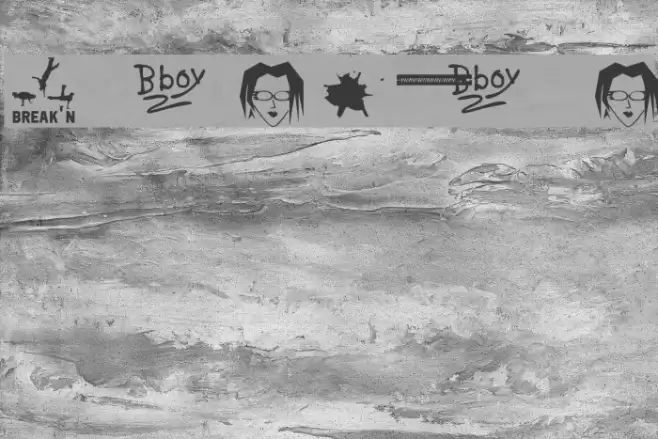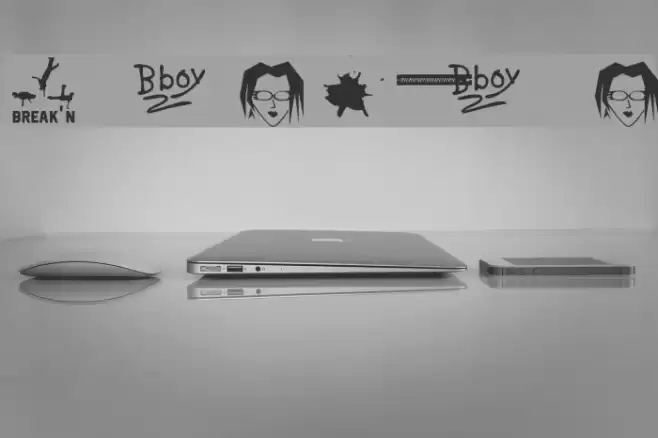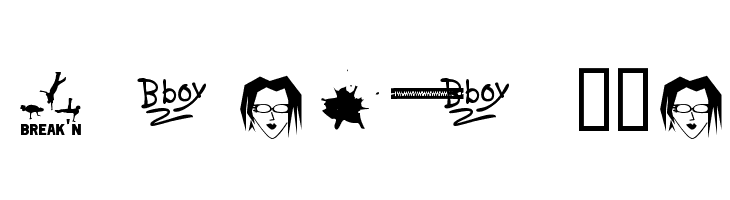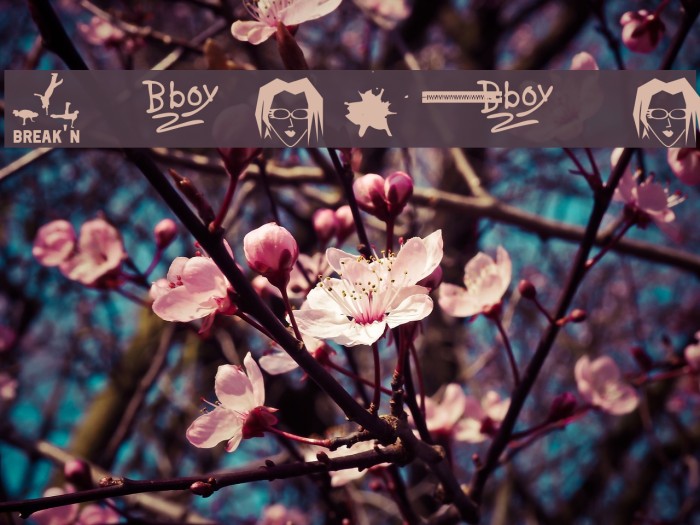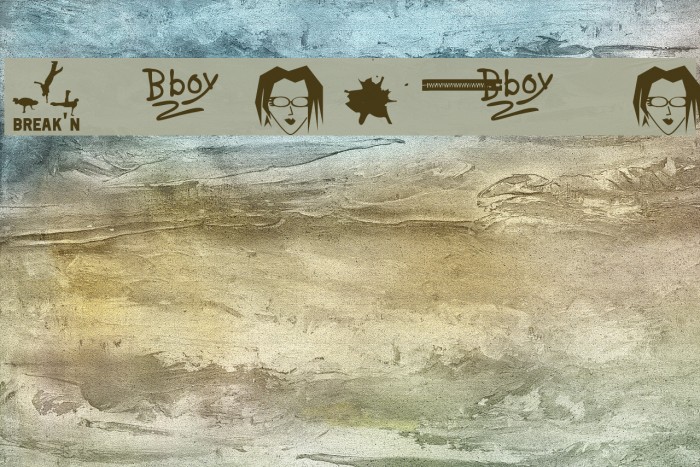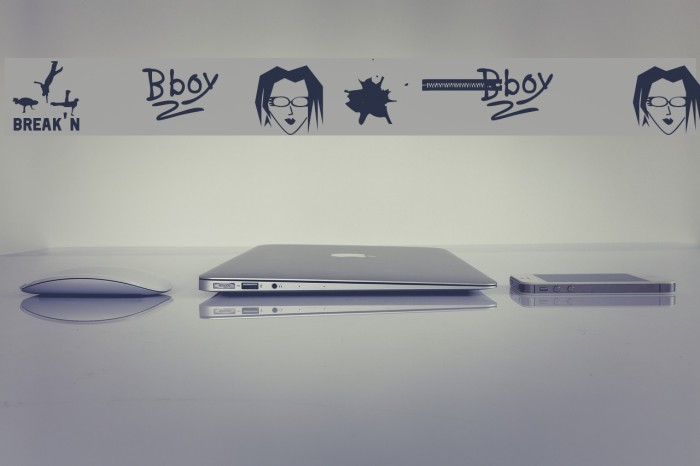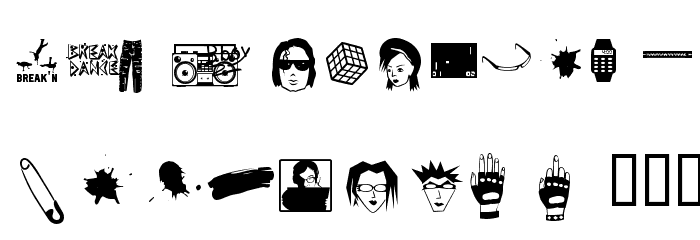
Awesome 80s Font
Awesome 80s Description
This is not a traditional font but rather a collection of 1980s-themed icons and graphics. The design includes various elements such as breakdancing figures, boomboxes, retro sunglasses, and other iconic symbols from the 80s era. These graphics are bold and striking, capturing the vibrant and eclectic style of the decade. The elements are presented in black and white, emphasizing their bold outlines and shapes. This collection is perfect for projects that aim to evoke nostalgia or celebrate the unique cultural aspects of the 1980s.
A collection of bold, 1980s-themed icons and graphics from Uncategorized fonts.
- Proposed Projects: Ideal for retro-themed designs, 80s party invitations, nostalgic branding, or any project celebrating the 1980s culture.
- Overall Style: Vintage
- Use Case: Logos, Posters, Themed Events